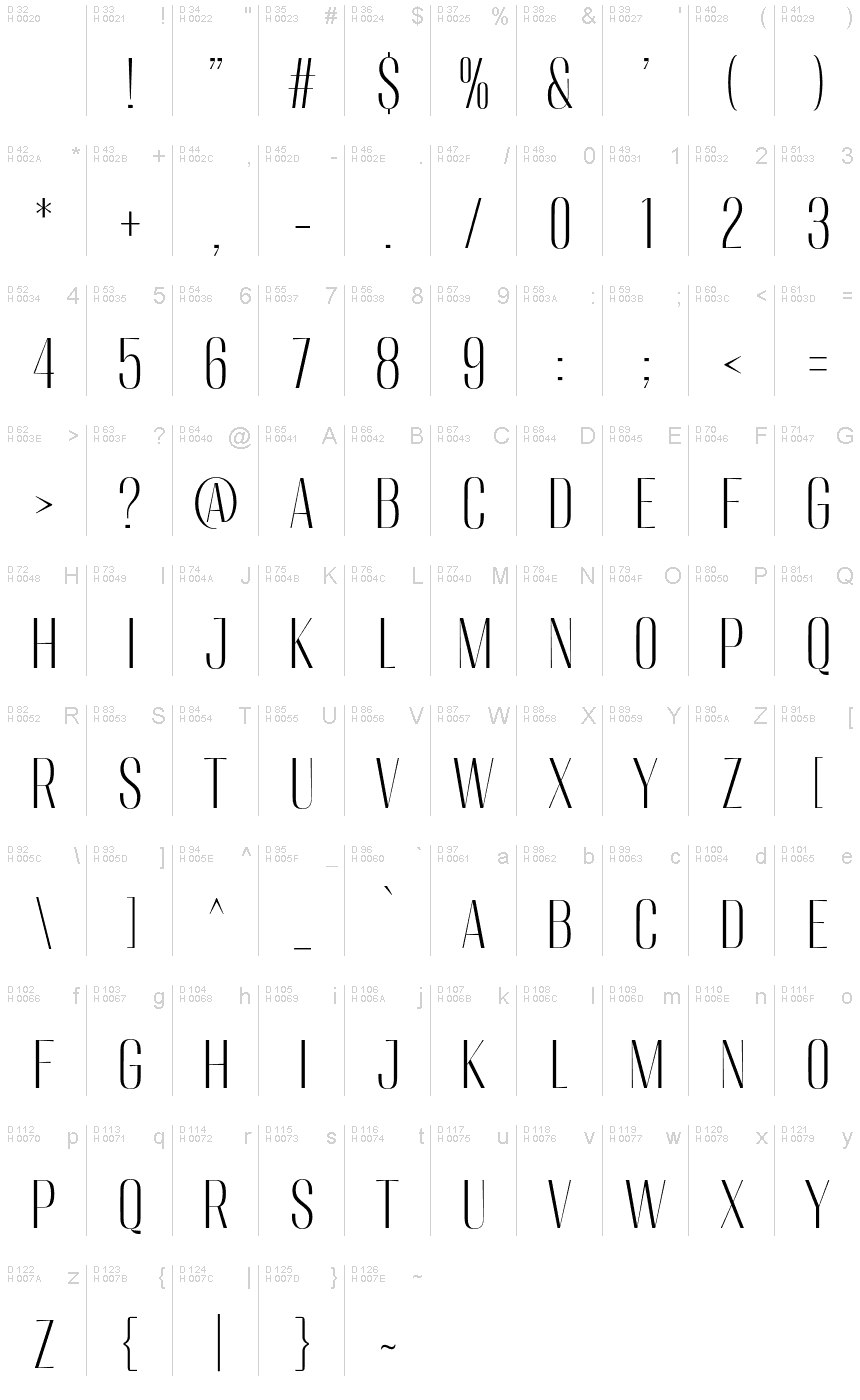
Migha-LightCondensed
Migha Light Condensed is the sans serif typeface that will elevate any project to a new level of sophistication. Designed by Seniors Studio, this extra-condensed font exudes elegance while maintaining a refined simplicity. Its light weight lends itself well to projects that require a delicate touch, such as wedding invitations or high-end fashion magazines. Migha Light Condensed’s clean lines and modern style make it perfect for minimalist designs or websites that need a sleek and professional look. Whether used in headings or body text, this font will add an air of luxury to any project it graces.